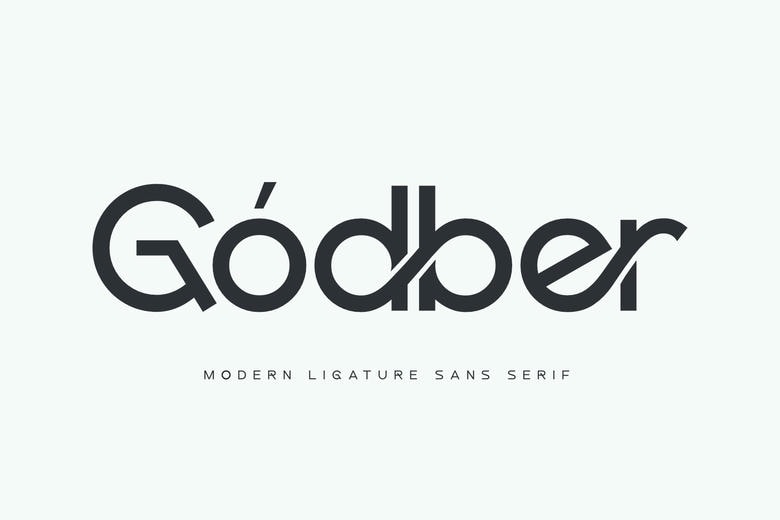
Godber Font
Godber is for the brave and confident – a font that instantly raises your brand’s profile. Logon requests that help you create sleek, eye-catching logos, Godber features sleek lines alongside effervescent style to guarantee your business is apparent.
Godber Sans Serif Font